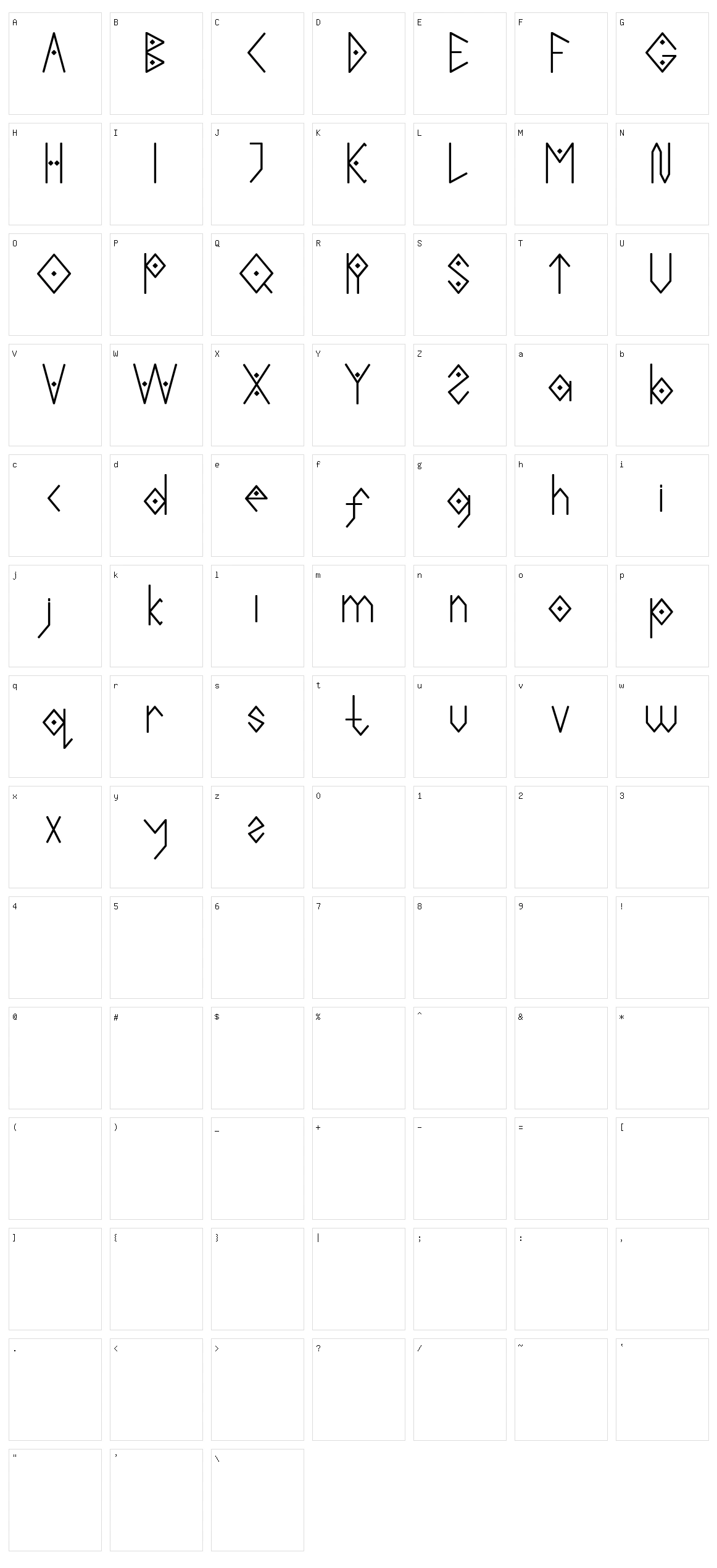
Shalltear is a display font decorated with tribal patterns. The typeface includes Decorative, Black and Symbol versions.
The font is easy to use in various design programs or without any program.
Shalltear font is suitable for lettering posters and cards, tourist brochures, photo overlays, book covers and article titles.
The font works great both for printing clothes and craft products branding and packaging (floristics, soap making, natural cosmetics).
Also use individual letters to create logos and monograms.